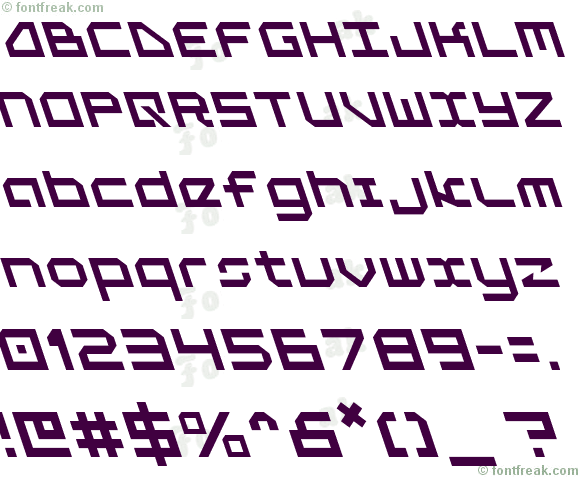
5th Agent Leftalic
5th Agent
5th Agent Italic
The 5th Agent Leftalic font, designed by Daniel Zadorozny, is a striking display typeface that captures attention with its unique italic style. As a part of the Iconian Fonts collection, this font embodies a modern aesthetic, featuring a bold and dynamic appearance that sets it apart from traditional typefaces. With a consistent stroke weight and minimal contrast, the letters convey a sense of strength and stability while maintaining an air of elegance. The slanted shapes and angular edges add a contemporary flair, making it ideal for a variety of design projects.
The visual characteristics of the 5th Agent Leftalic font are defined by its distinctive italicization, giving it a sense of movement and energy. The spacing between the characters is carefully considered, allowing for readability while still being visually compelling. This font's clean lines and geometric forms make it a perfect choice for use cases such as movie posters, where bold statements are required; branding for tech startups, where modernity is key; graphic designs for music festivals, where creativity flourishes; and even eye-catching restaurant menus that seek to impress diners.
In conclusion, the 5th Agent Leftalic font stands out due to its unique combination of modernity and functionality. Its bold, italic design not only captures attention but also provides versatility across various applications, making it an essential addition to any designer's toolkit. Don't miss out on the opportunity to enhance your projects—consider the 5th Agent Leftalic font free download for your next design endeavor.